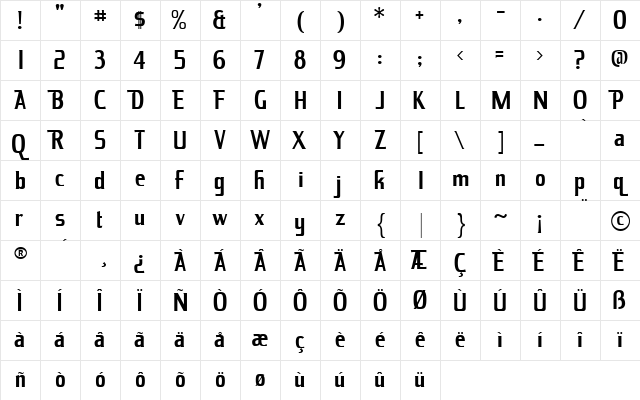
King Richard Regular
Regular · Ray Larabie Ray Larabie ·
Design Context for King Richard Typeface
King Richard offers clean, dependable letterforms without strong stylistic allegiance, making it a practical choice for designers who need flexibility.